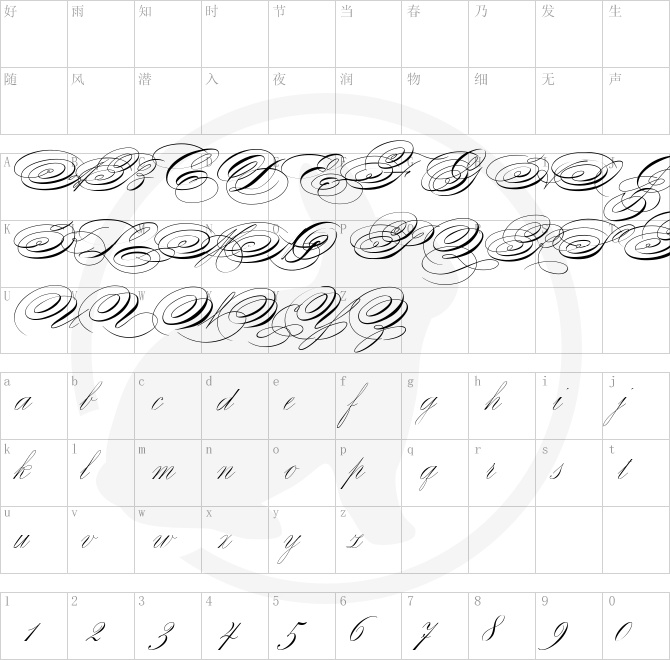
- Font Name:Zanerian Two
Zanerian-Two.ttf is a very beautiful artistic font, Zanerian-Two.ttf is widely used in the design and printing of various books and pictures,Zanerian-Two.ttf has a strong visual impact,Zanerian-Two.ttf is a commonly used font in newspapers, magazines and books, and is used in posters, e-commerce Poster design, store design, logo design, font design and other fields.Zanerian-Two.